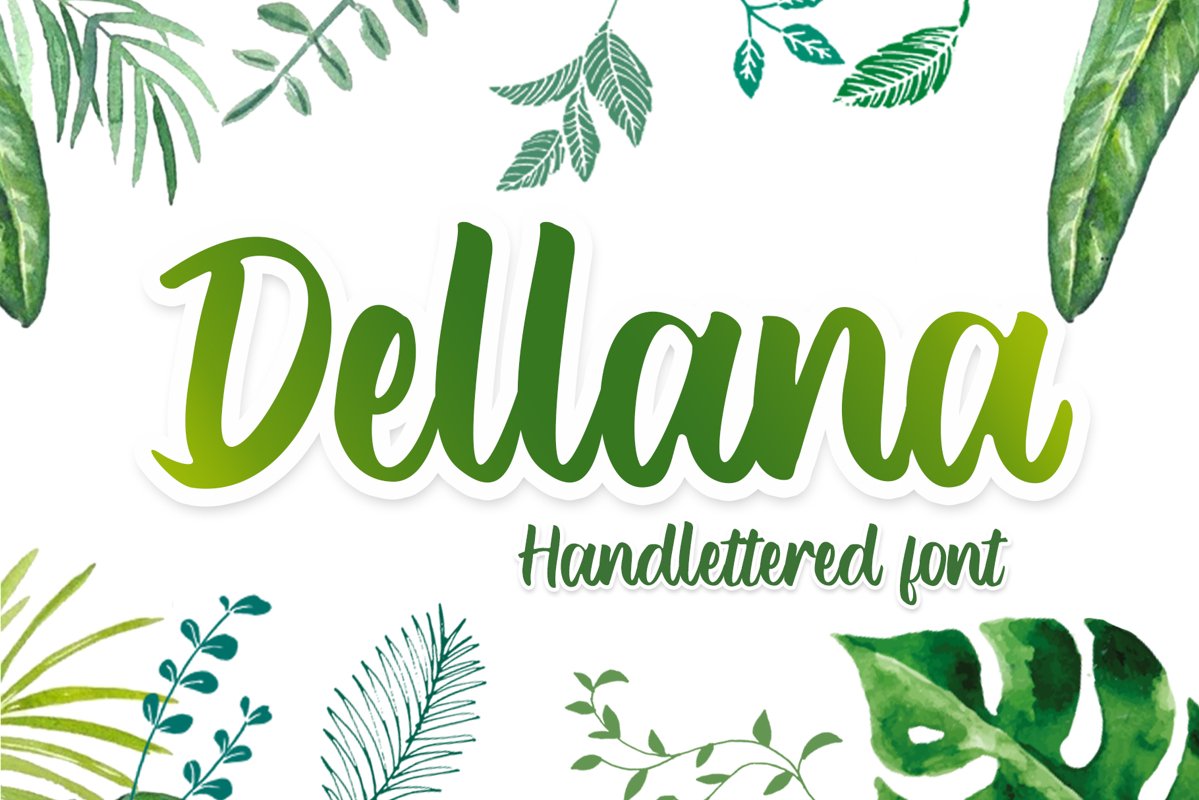
Dellana
Delana
Dellana is a script handwritten font, with a sweet and playful vibe. It’s the ideal font for turning any crafting idea into a true standout.